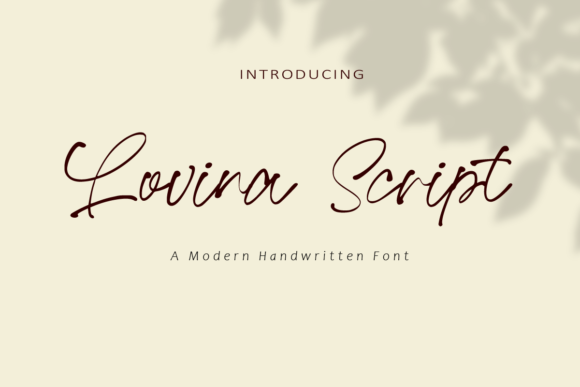
Lovina Script Font: Your Creative Canvas, Unveiled
In a world where words hold power and art captivates, Lovina Script Font emerges as a masterpiece, beckoning you to embrace your creative spirit. This elegant script font, a true testament to the artistry of Adhi Willy, possesses an undeniable charm, inviting you to dance with its graceful characters, each stroke a testament to beauty and fluidity.
From the moment you lay your eyes upon Lovina Script, you'll be captivated by its playful nature, a symphony of curves and flourishes that bring life to your digital creations. Whether you're a seasoned designer seeking to elevate your projects or a budding artist exploring the depths of your imagination, Lovina Script is your trusted companion, ready to transform your vision into reality.
A Font for All Seasons: Endless Creative Possibilities
Within the realm of typography, Lovina Script reigns supreme, its versatility a testament to its boundless potential. Whether you're crafting logos that demand attention, designing social media posts that captivate audiences, or personalizing invitations that leave a lasting impression, Lovina Script seamlessly adapts to your creative needs.
Its charming characters, infused with a touch of whimsy, lend themselves effortlessly to crafting personalized quotes, adding a touch of elegance to your digital correspondence, or creating stunning headers that command attention. Dive into the depths of your creativity, let Lovina Script be your guide, and witness the transformation of your ideas into captivating visual masterpieces.
A Glimpse into Lovina Script's Enchanting World
Lovina Script Font, a symphony of visual delight, beckons you to explore the depths of its enchanting realm. Its fluid strokes, reminiscent of a dancer's graceful movements, bring life to your words, transforming them into works of art.
Step into a world where imagination knows no bounds, where every letter dances across the screen, carrying with it a touch of magic. With Lovina Script, your designs transcend the ordinary, capturing hearts and minds with their captivating allure. Unleash the storyteller within, let your words take flight, and watch as Lovina Script weaves its enchanting spell, leaving your audience spellbound.